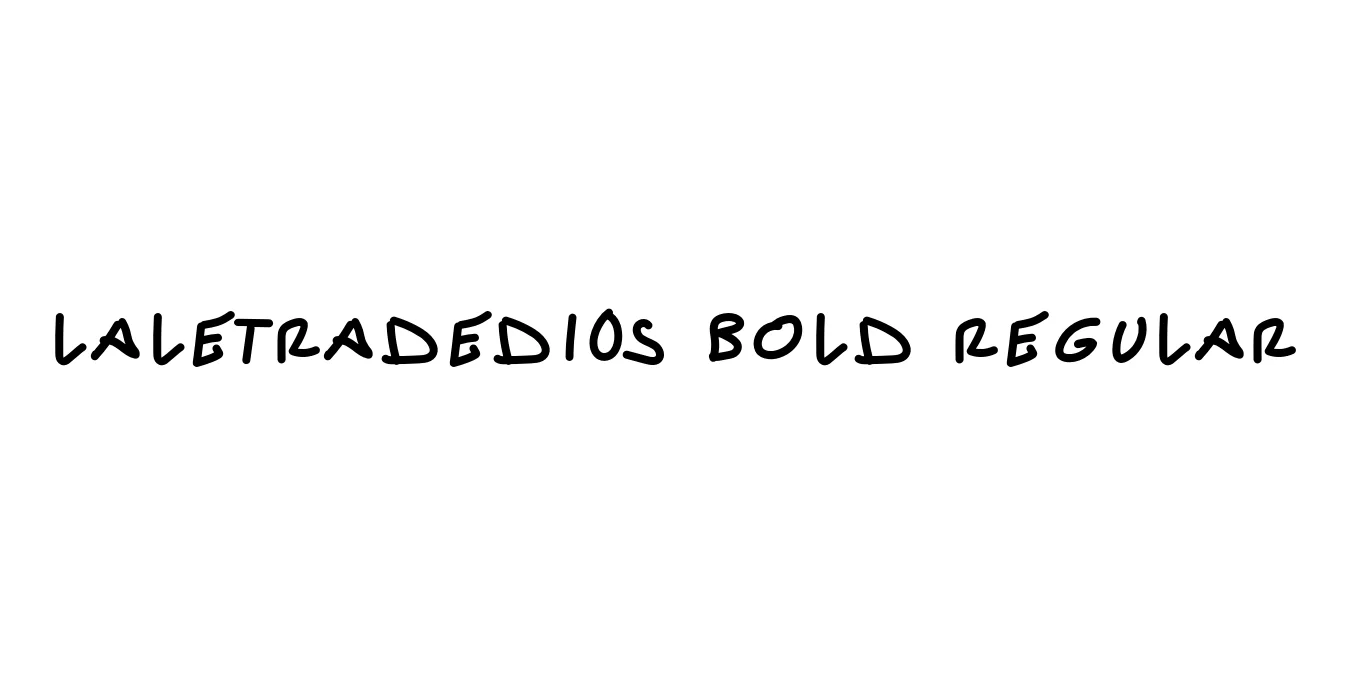
LaLetraDeD10S Bold Regular
Designed by Independent Tribute Designer
| Category | Script / Handwriting |
LaLetraDeD10S Bold Regular is a distinctive typeface inspired by the personal handwriting and signature of the legendary Argentinian footballer, Diego Armando Maradona. The font was developed as a cultural tribute, capturing the fluid, energetic, and iconic strokes that became synonymous with the 'D10S' of world football. It translates the raw emotion and personal flair of handwritten notes into a digital format, allowing designers to evoke the spirit of one of history's greatest sporting figures.
The typeface is categorized as a bold script with a high degree of authenticity in its irregular letterforms. Its design mimics the natural flow of a marker or pen, featuring thick strokes and unique ligatures that reflect Maradona's dynamic personality. It is particularly effective for display purposes, where the goal is to establish an immediate connection to sports history, Argentinian culture, or a sense of authentic human touch in graphic communication.
LaLetraDeD10S Bold Regular Best Uses
Ideal for social media graphics, match posters, and headlines related to football.
Perfect for fan-made t-shirts, jerseys, and merchandise honoring sporting legends.
Excellent for biographies, magazine spreads, and documentary titling.
Great for creating unique greeting cards, scrapbooks, or personal tributes.